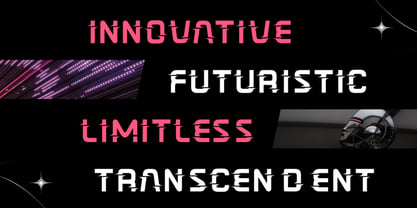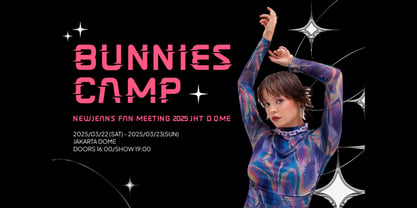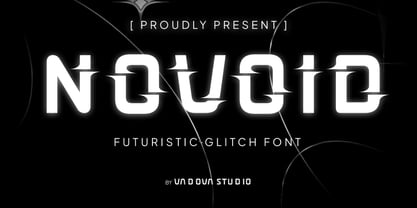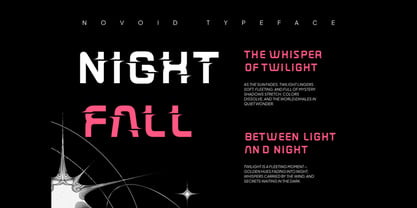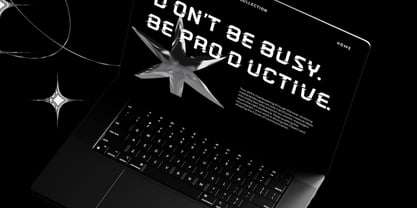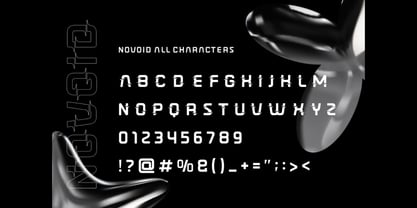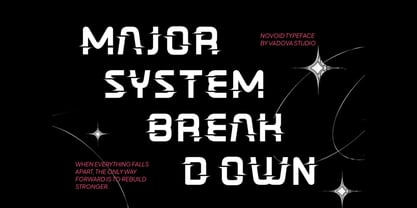
Novoid
von Vadova Std
Elevate your designs with Novoid a futuristic glitch typeface that combines sharp digital aesthetics with bold sci-fi energy. Its broken and distorted letterforms evoke a sense of digital decay, making it perfect for cyberpunk designs, tech branding, experimental posters, and edgy music visuals.
Novoid delivers a unique typographic voice that feels both chaotic and structured ideal for projects that need a bold, high-tech, and rebellious style. With its strong visual presence, Novoid turns every word into a glitchy, futuristic statement.